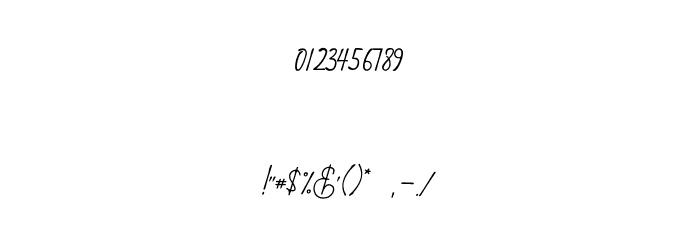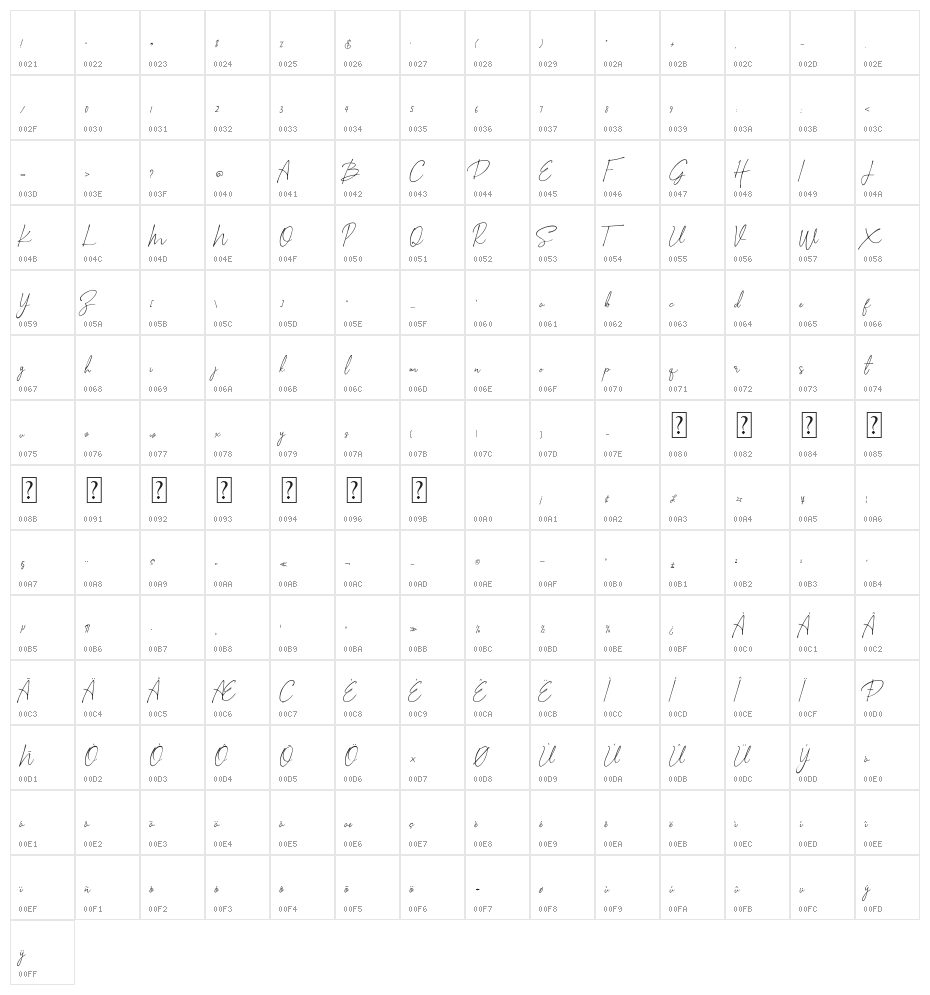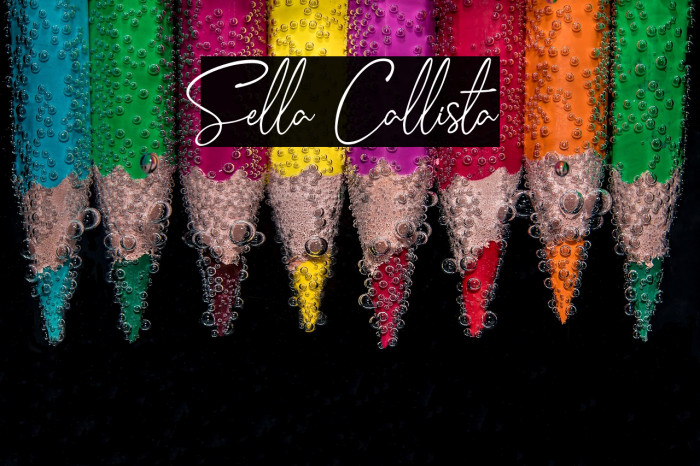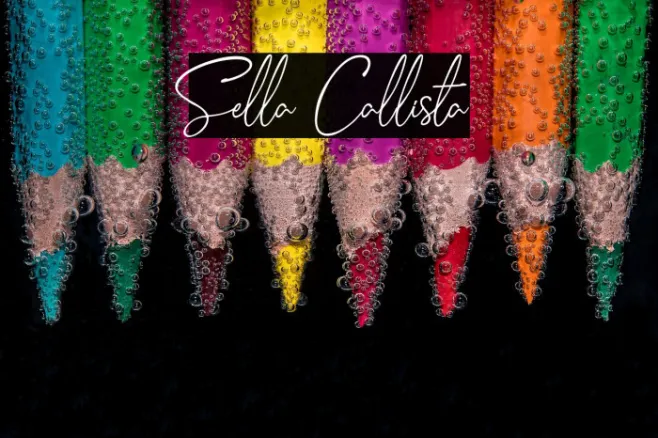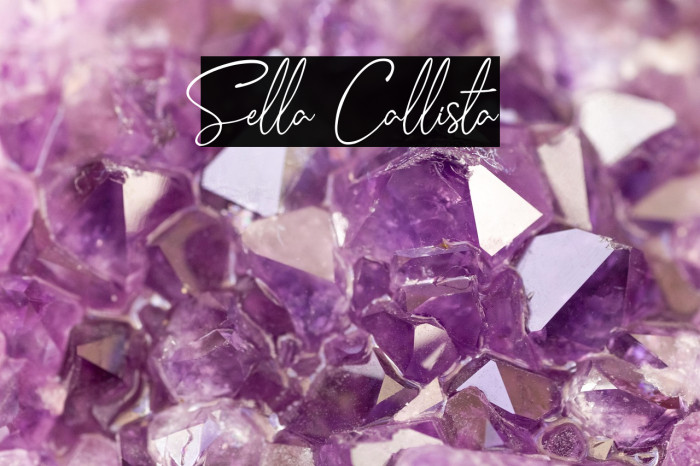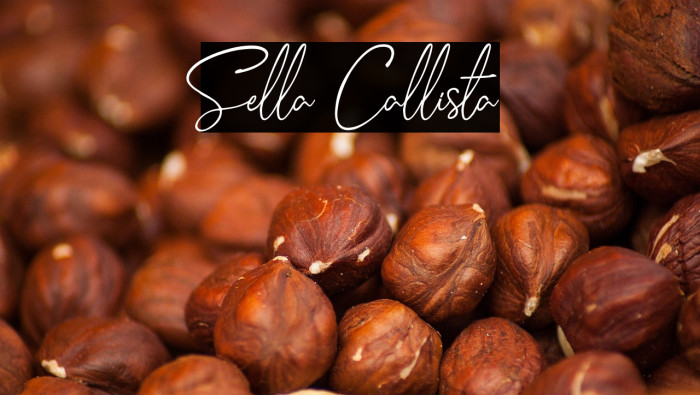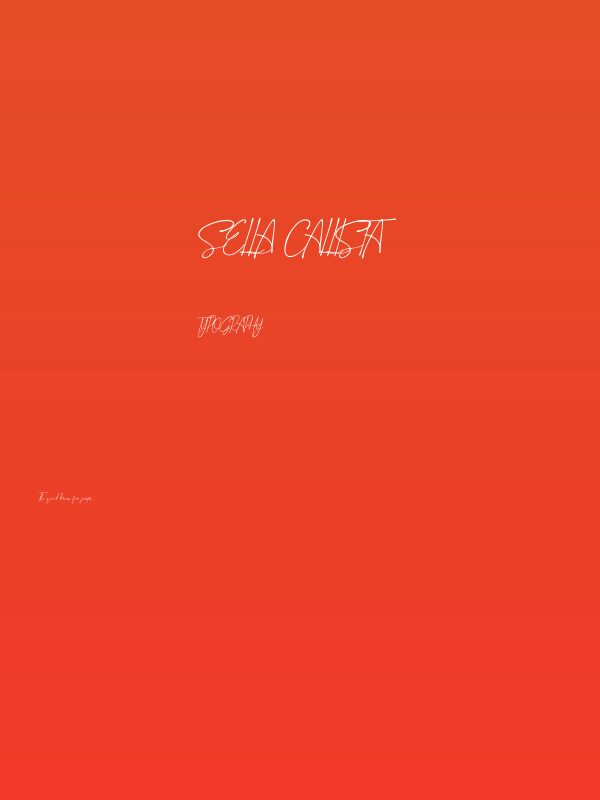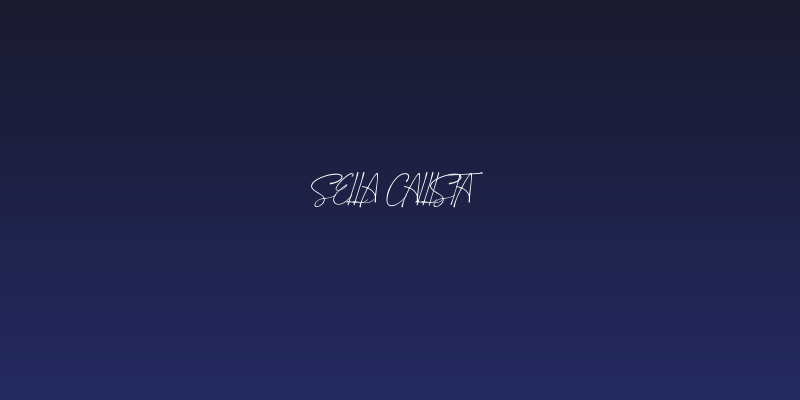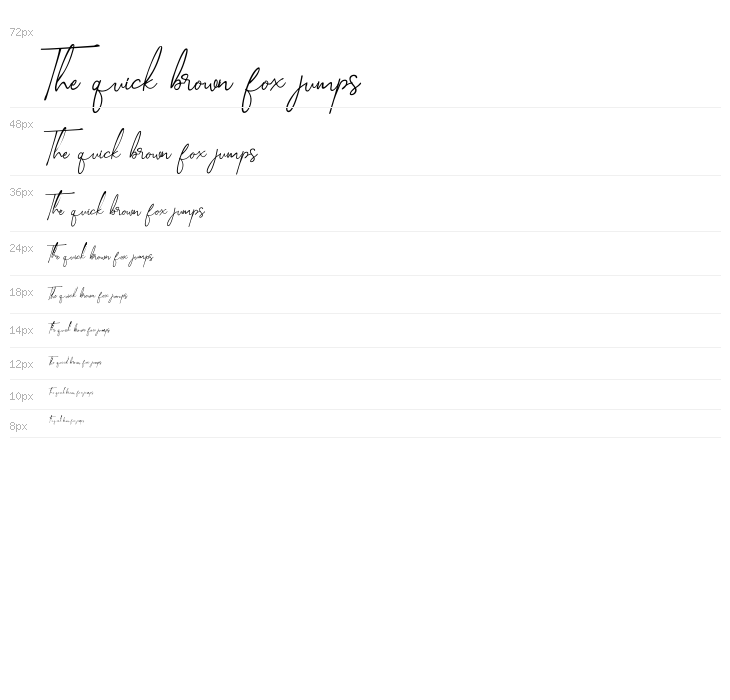
Sella Callista Font
Sella Callista Description
This font features an elegant, flowing script style that mimics the fluidity of natural handwriting. The uppercase letters are bold and sweeping, with dramatic flourishes that add a sense of sophistication and grace. The lowercase letters maintain a consistent style, with smooth, connected strokes that enhance readability while preserving the font's artistic flair. Numbers and special characters are designed to match the overall aesthetic, ensuring a cohesive look across all text elements. The font's delicate lines and graceful curves make it ideal for projects that require a touch of elegance and personal expression.